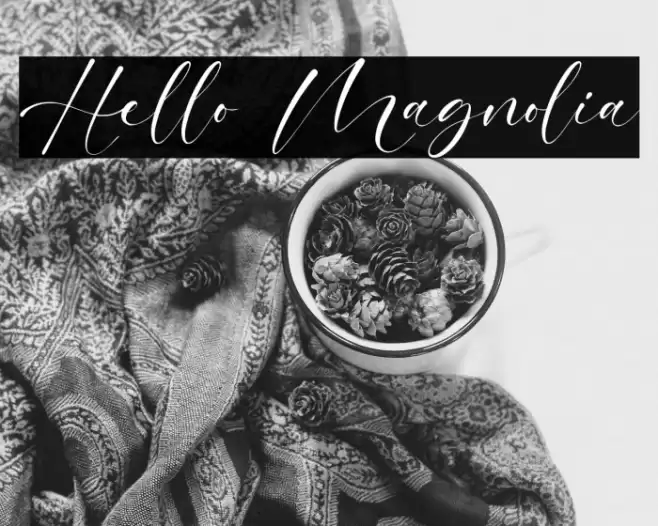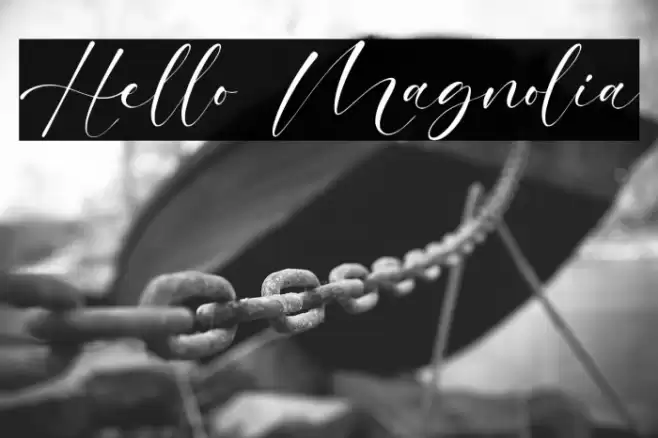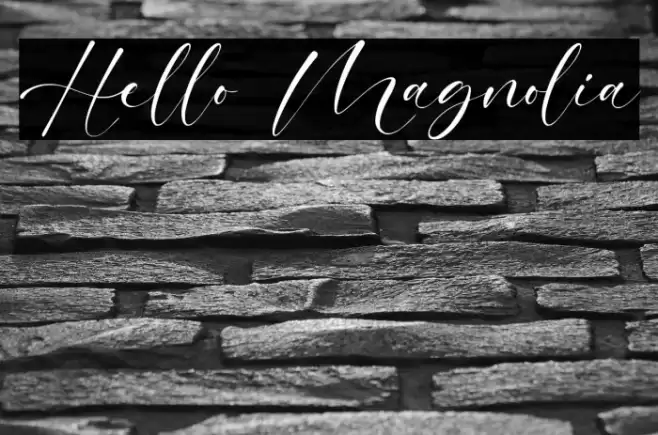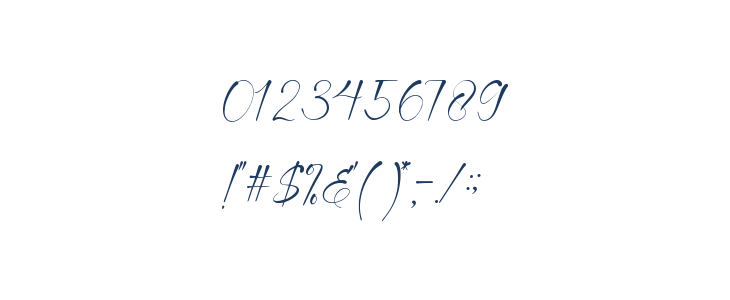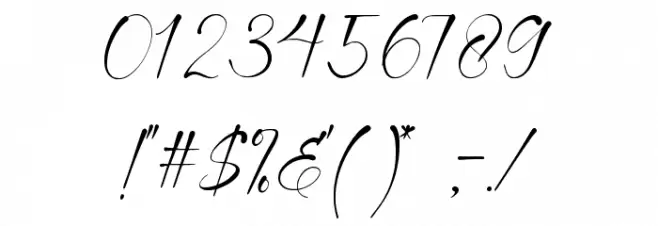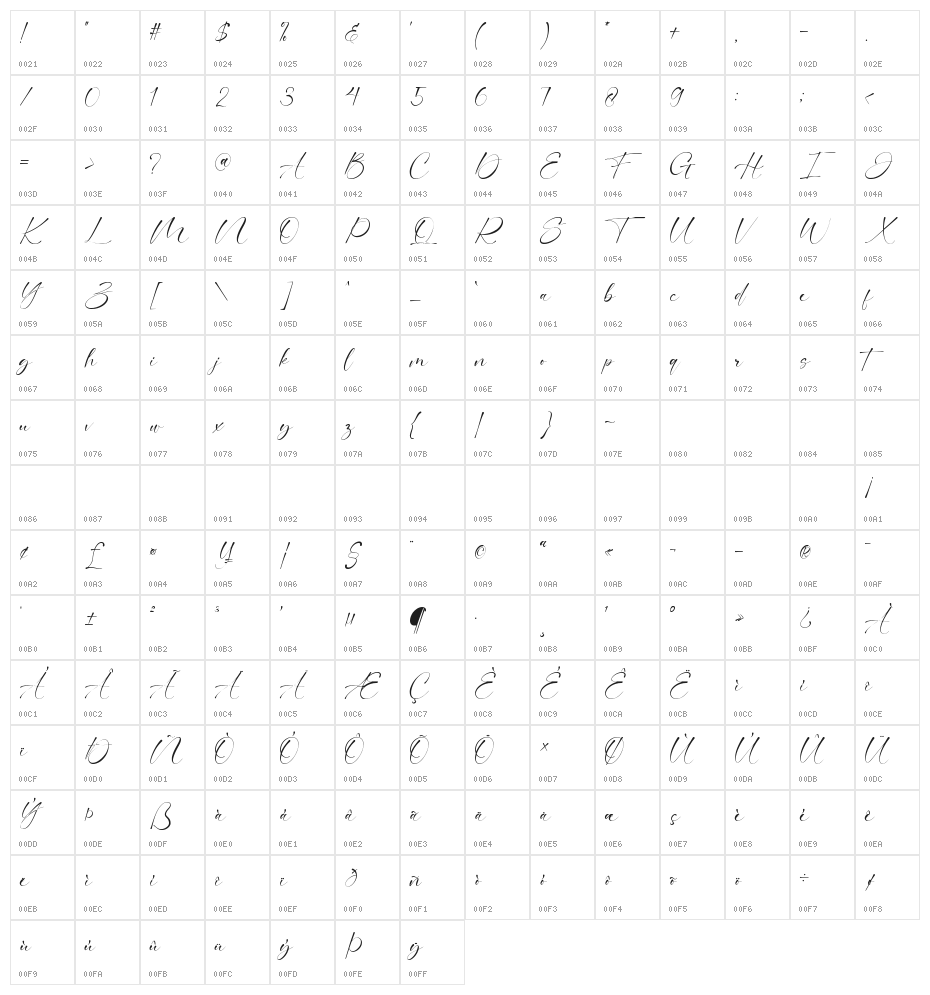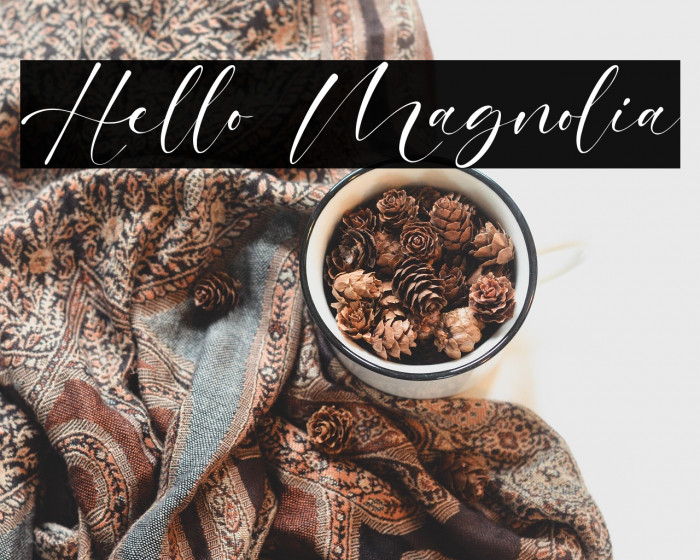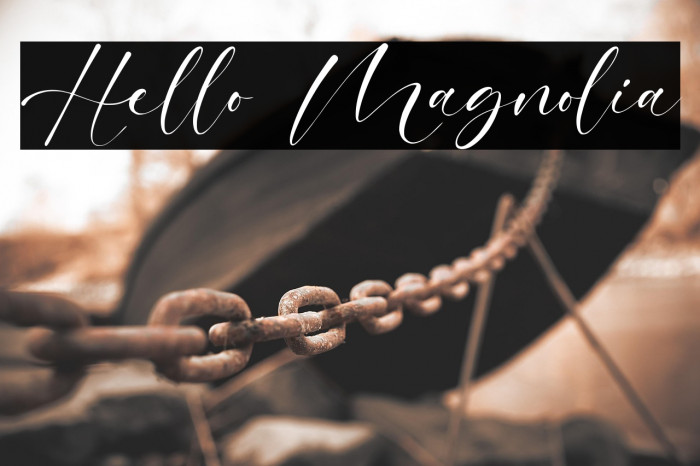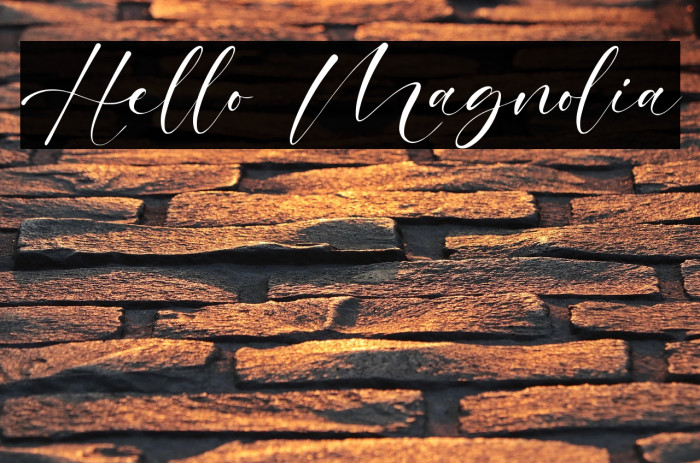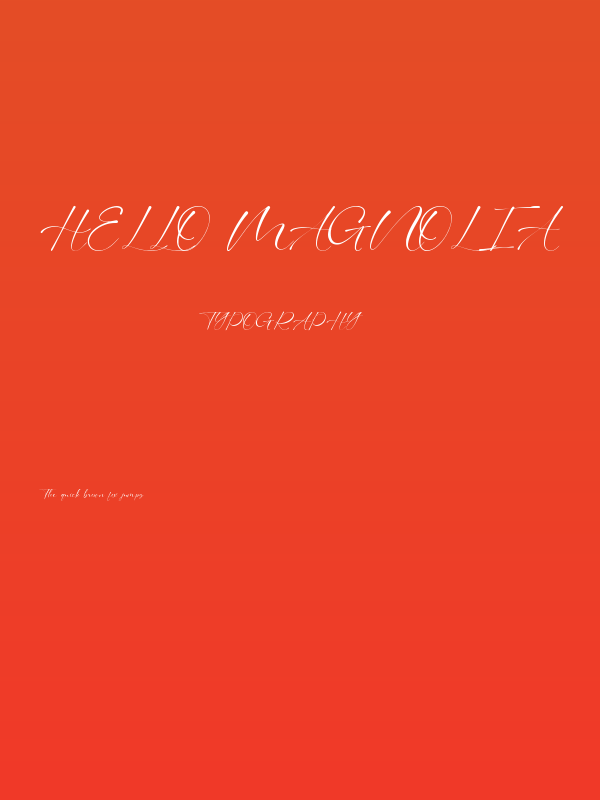
Hello Magnolia Font
Hello Magnolia Description
This elegant script font features a flowing, cursive style with graceful, sweeping lines and a refined aesthetic. The characters are interconnected, creating a seamless and fluid appearance. The uppercase letters are slightly more elaborate, with extended flourishes that add a touch of sophistication. The lowercase letters maintain a consistent rhythm, enhancing readability while preserving the font's artistic flair. The numerals are designed to complement the letters, maintaining the same elegant curves and strokes. Special characters are thoughtfully integrated, offering versatility for various design needs. This font exudes a sense of elegance and charm, making it suitable for projects that require a personal and stylish touch.
An elegant, flowing script font with graceful, interconnected characters from Regular fonts.
- Proposed Projects: Ideal for wedding invitations, greeting cards, branding, and elegant packaging designs.
- Overall Style: Elegant, Decorative
- Use Case: Logos, Invitations, Decorative text